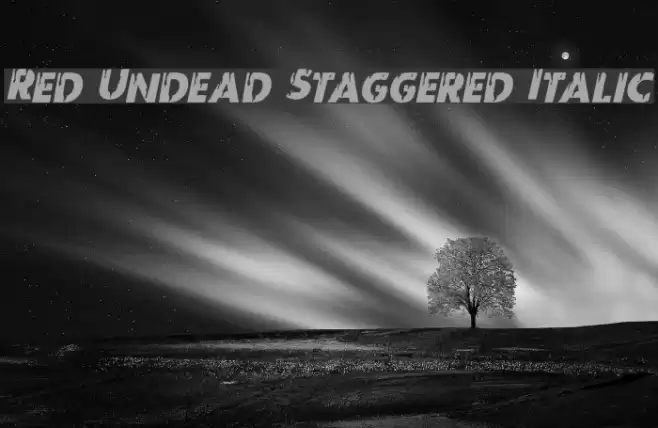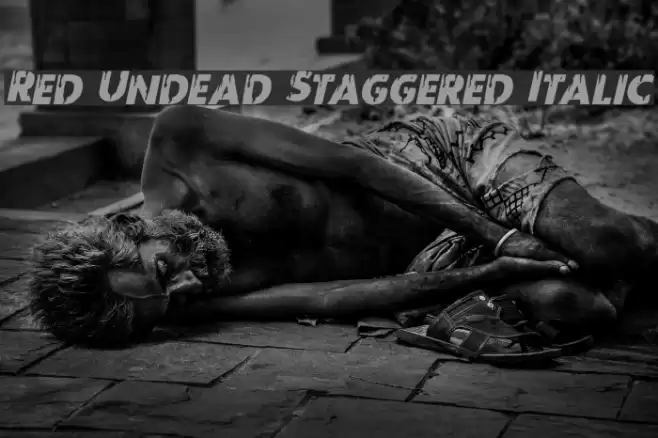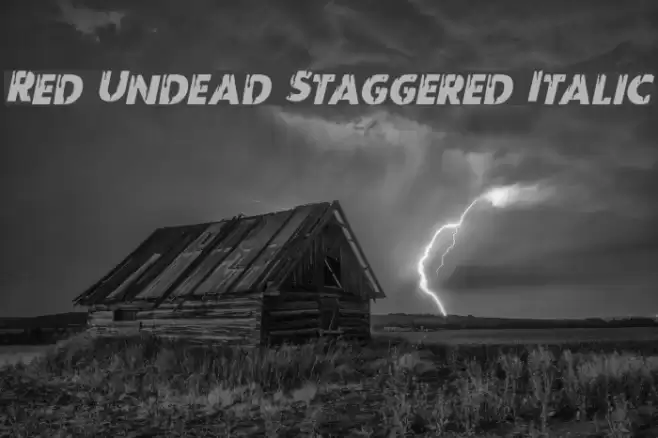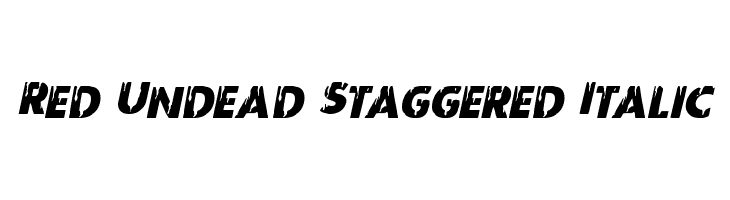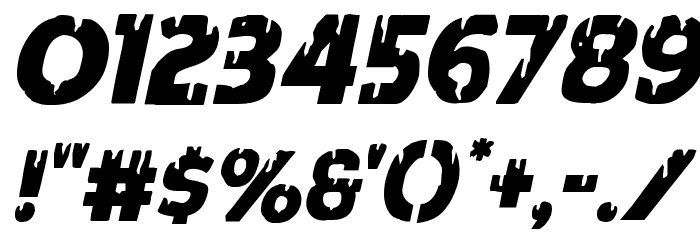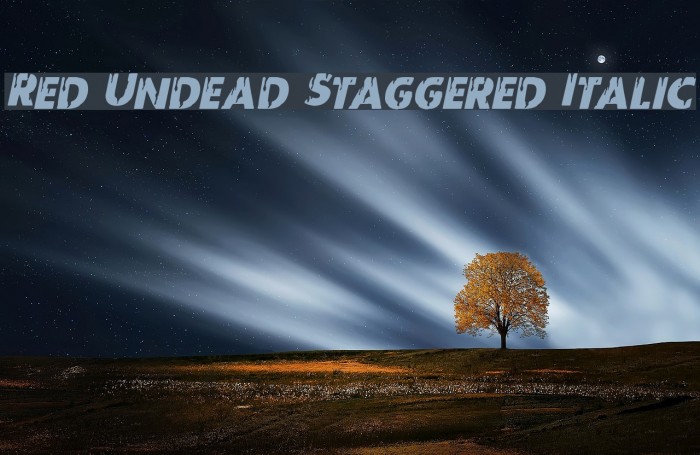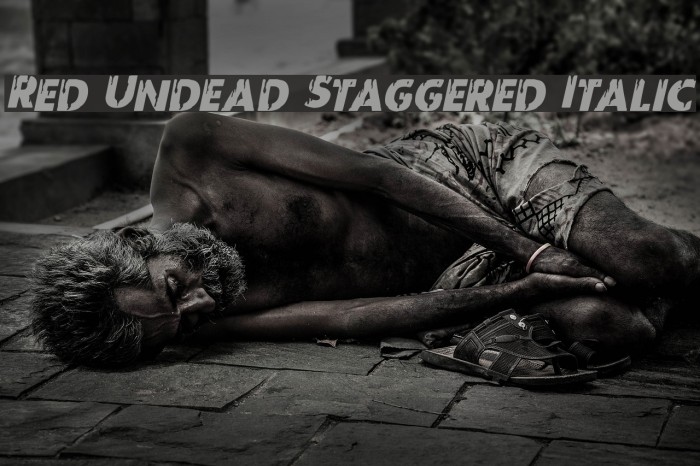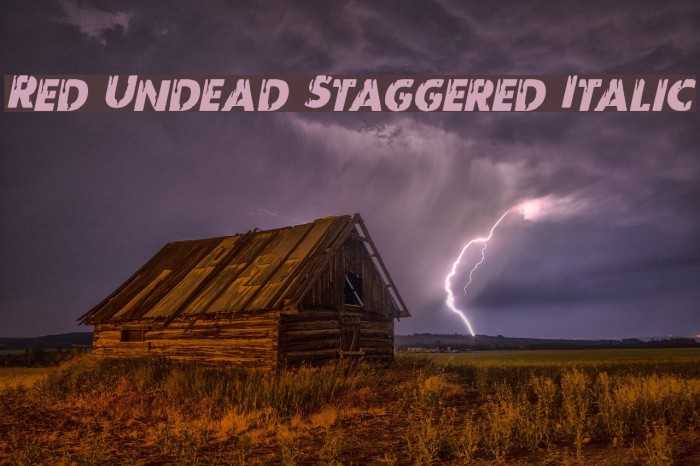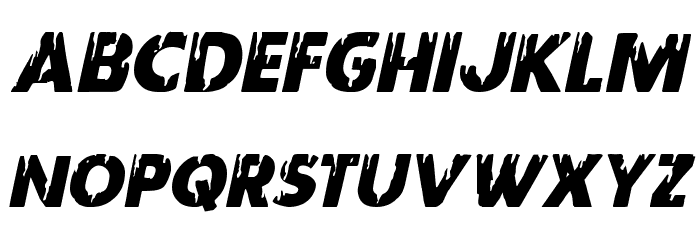
Red Undead Staggered Italic Font
Red Undead Staggered Italic Description
This font features a bold, distressed style with a staggered, italicized appearance. The characters have a rough, uneven texture that gives them a rugged, edgy look. The uppercase and lowercase letters maintain a consistent style, with sharp angles and a slightly slanted orientation. The numbers and special characters follow the same design, ensuring a cohesive appearance across all elements. This font's unique style makes it stand out, perfect for projects that require a bold and unconventional aesthetic.
A bold, distressed, and staggered italic font with a rugged appearance from Horror fonts.
- Proposed Projects: Ideal for horror-themed designs, edgy posters, album covers, and video game graphics.